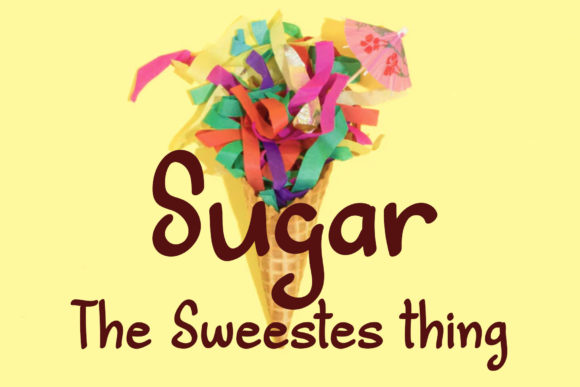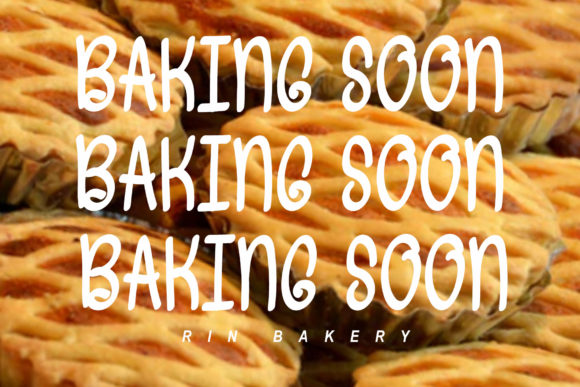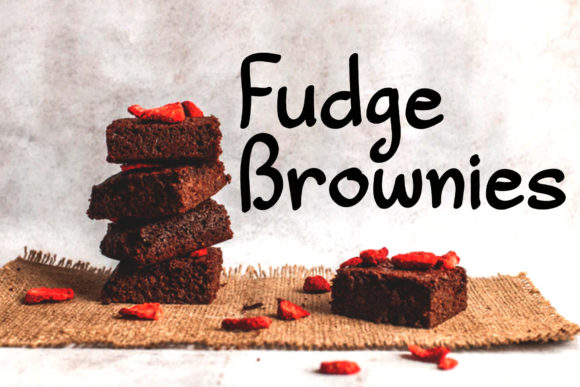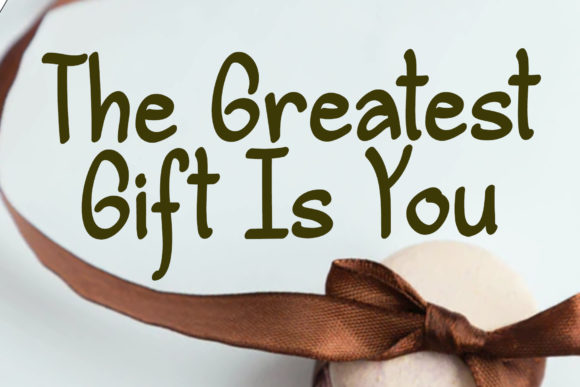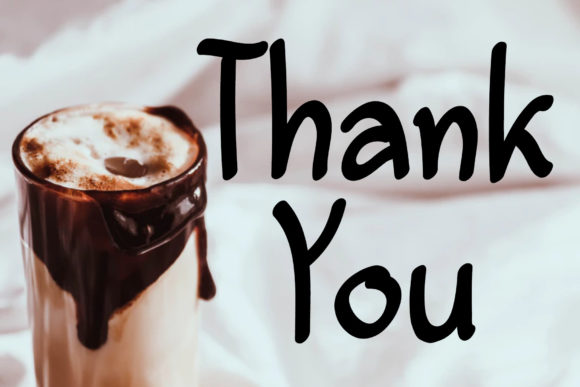
Introducing Chocolate Waffle Font: The Sweetest Addition to Your Design Toolbox
Are you tired of using the same old fonts in your designs? Look no further! Chocolate Waffle Font is a delightful, handwritten font that’s sure to add a touch of whimsy and personality to your projects. In this article, we’ll dive into the world of Chocolate Waffle Font, exploring its features, uses, and benefits for designers and crafters.
What is Chocolate Waffle Font?
Chocolate Waffle Font is a simple, fun, and friendly handwritten font that’s perfect for adding a unique touch to your designs. With its playful and approachable vibe, this font is ideal for a wide range of applications, from web designs and business cards to social media graphics and craft projects.
Key Features of Chocolate Waffle Font
- Handwritten style: Chocolate Waffle Font boasts a charming, handwritten style that’s perfect for adding a personal touch to your designs.
- Simple and easy to read: Despite its playful nature, Chocolate Waffle Font is surprisingly easy to read, making it perfect for body text and headings.
- Versatile: This font is suitable for a wide range of applications, from digital designs to print materials.
- Unique and distinctive: Chocolate Waffle Font has a one-of-a-kind charm that’s sure to set your designs apart from the crowd.
Uses for Chocolate Waffle Font
So, what can you use Chocolate Waffle Font for? The possibilities are endless! Here are a few ideas to get you started:
- Web design: Add a touch of personality to your website with Chocolate Waffle Font. Use it for headings, titles, and even body text.
- Business cards: Make a statement with your business cards by using Chocolate Waffle Font. It’s a great way to add a personal touch and make your cards stand out.
- Social media graphics: Use Chocolate Waffle Font to create engaging social media graphics that showcase your brand’s personality.
- Craft projects: Whether you’re making DIY signs, cards, or other craft projects, Chocolate Waffle Font is a great choice.
So, what are the benefits of using Chocolate Waffle Font? Here are a few:
- Adds personality to your designs: Chocolate Waffle Font is a great way to add a touch of personality to your designs and make them stand out.
- Easy to use: This font is surprisingly easy to use, even for those who are new to design.
- Versatile: Chocolate Waffle Font can be used for a wide range of applications, making it a great addition to your design toolbox.
- Unique and distinctive: This font has a one-of-a-kind charm that’s sure to set your designs apart from the crowd.
Tips for Using Chocolate Waffle Font
Here are a few tips for using Chocolate Waffle Font:
- Use it sparingly: While Chocolate Waffle Font is fun and playful, it can be overwhelming if used too much. Use it sparingly to add a touch of personality to your designs.
- Pair it with other fonts: Chocolate Waffle Font pairs well with other fonts, such as sans-serif fonts. Experiment with different pairings to find the perfect combination.
- Experiment with colors: Chocolate Waffle Font looks great in a variety of colors. Experiment with different colors to find the perfect shade for your design.
| Font Name | Chocolate Waffle Font |
| Author | Ansart |
In conclusion, Chocolate Waffle Font is a delightful, handwritten font that’s perfect for adding a touch of personality to your designs. With its playful and approachable vibe, this font is ideal for a wide range of applications, from web designs and business cards to social media graphics and craft projects. Whether you’re a designer or crafter, Chocolate Waffle Font is a great addition to your toolbox.